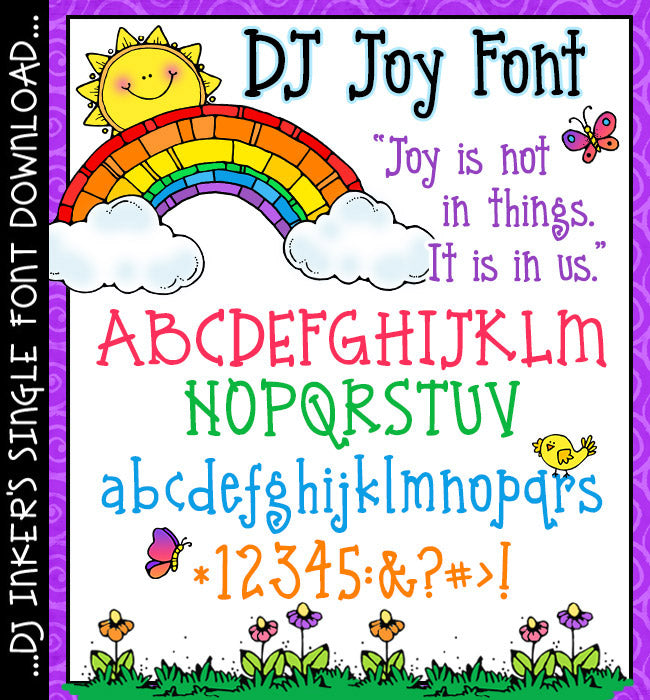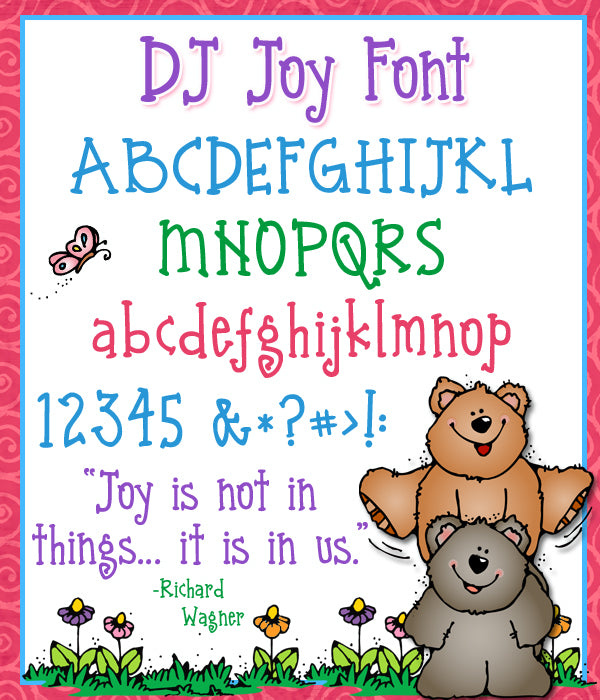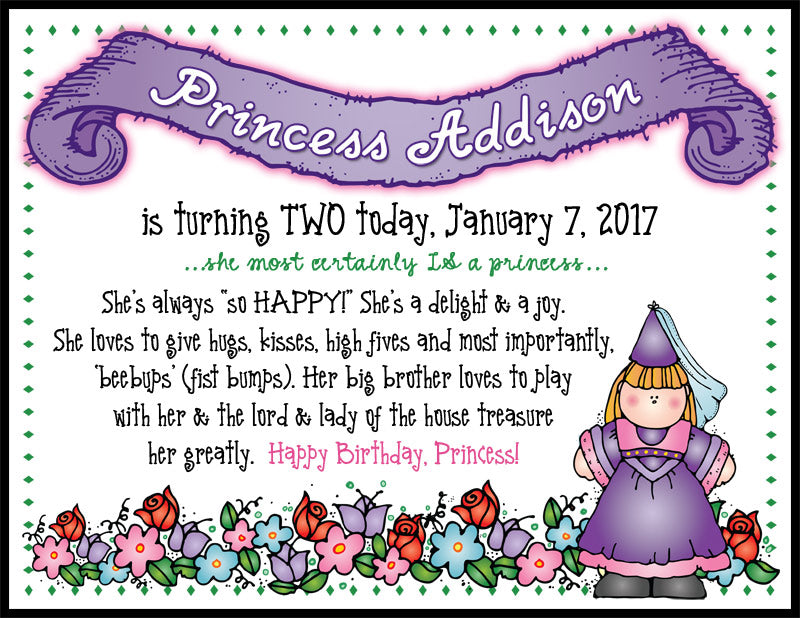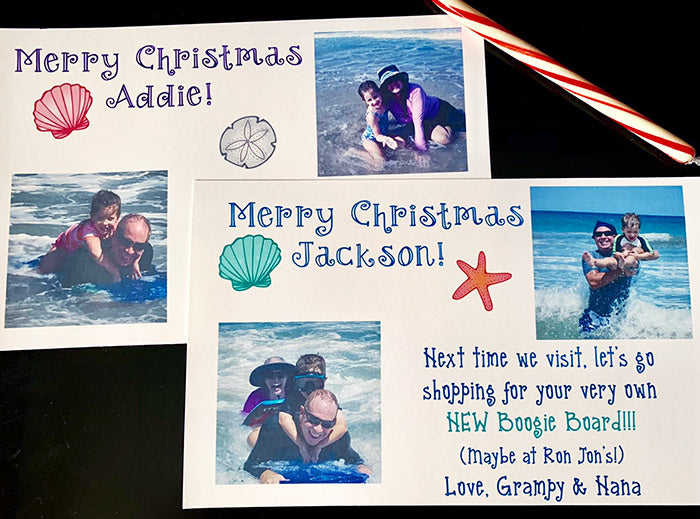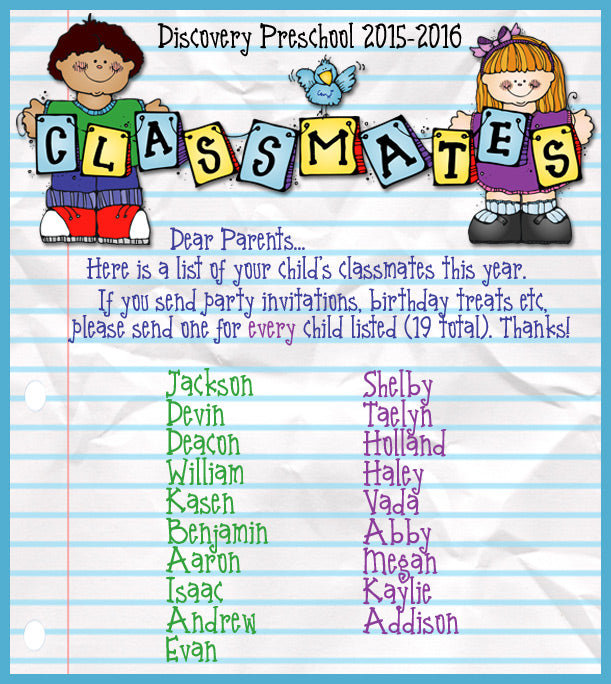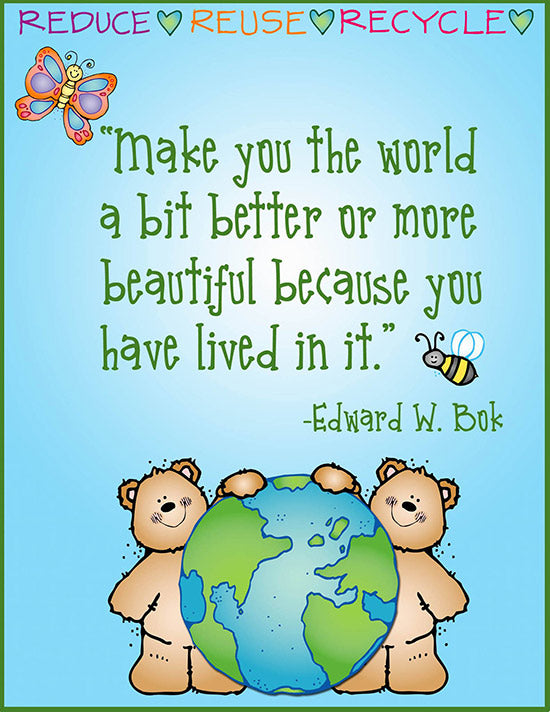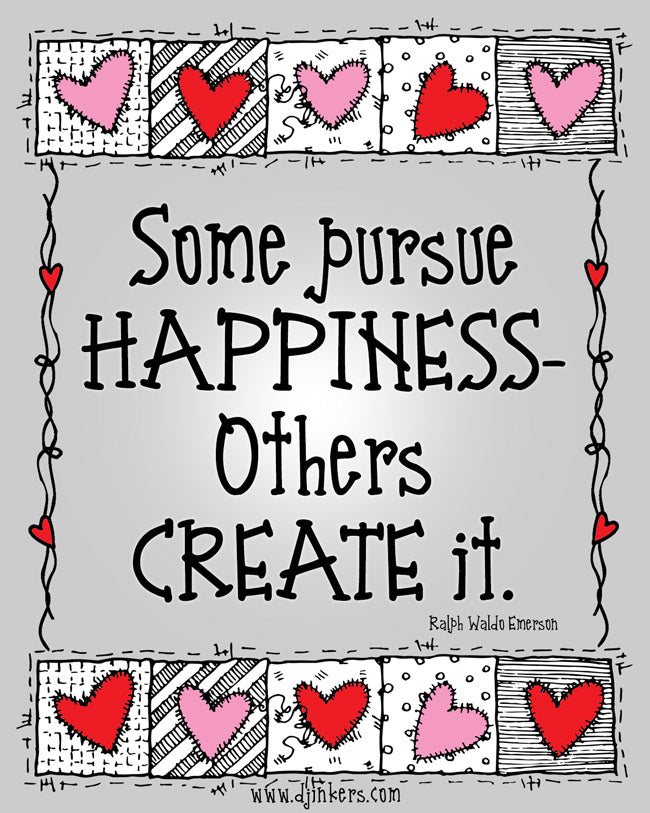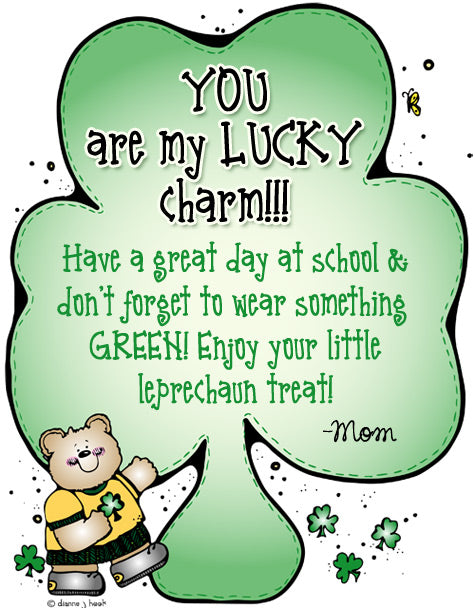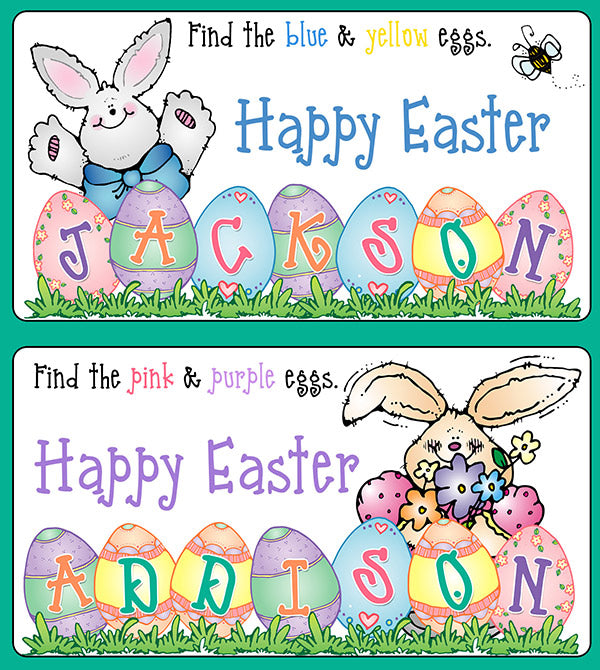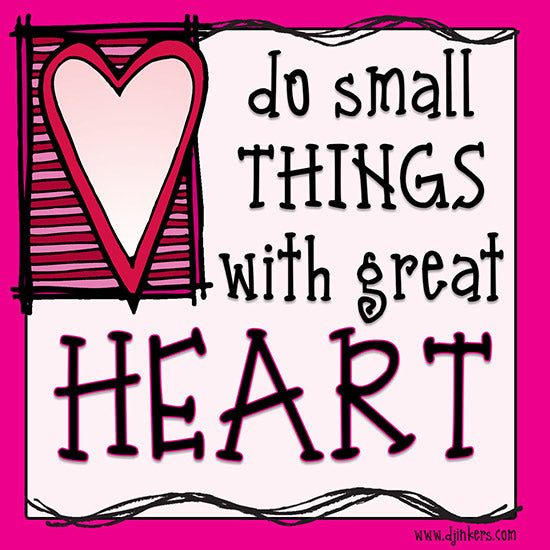
DJ Joy Font Download
This cute serif font by DJ Inkers is a Joy to type and create with!
Bold and simple, yet surprisingly versatile, it's perfect for everything
from home décor and school assignments to office memos and crafty creations.
Add a touch of playful charm to any project and let your creativity shine!
Also includes basic Spanish characters! Hand drawn lettering
by Dianne J Hook © DJ Inkers.